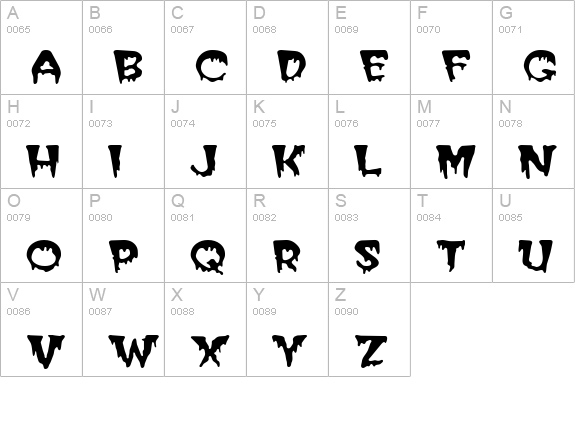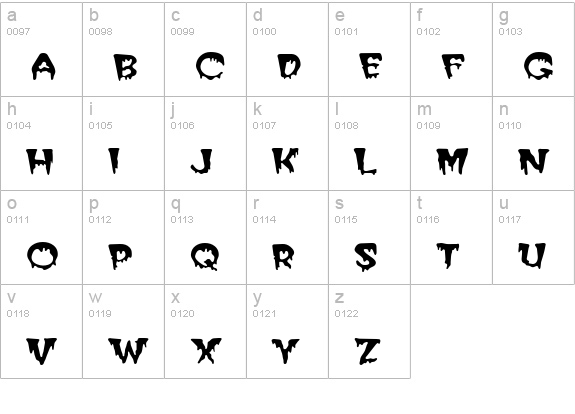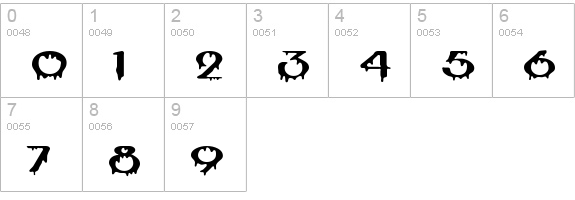
CreepyExtended Normal Font Details
CreepyExtended Normal is the standard, neutral variant in the CreepyExtended typeface family \xE2\x80\x94 well suited to general body text, paragraphs, and standard typographic work.
CreepyExtended Normal font is a hauntingly eerie typeface that will send shivers down your spine. With its elongated and distorted letterforms, this font is perfect for creating a spooky and unsettling atmosphere in your designs. Whether you're working on a horror movie poster, a Halloween party invitation, or a mysterious book cover, CreepyExtended Normal font will add an extra layer of creepiness to your project. The best part is that CreepyExtended Normal font is free to download at FontsMarket.com. You can easily add this chilling font to your collection without spending a dime. So go ahead and unleash your creativity with CreepyExtended Normal font and give your designs a truly sinister edge.